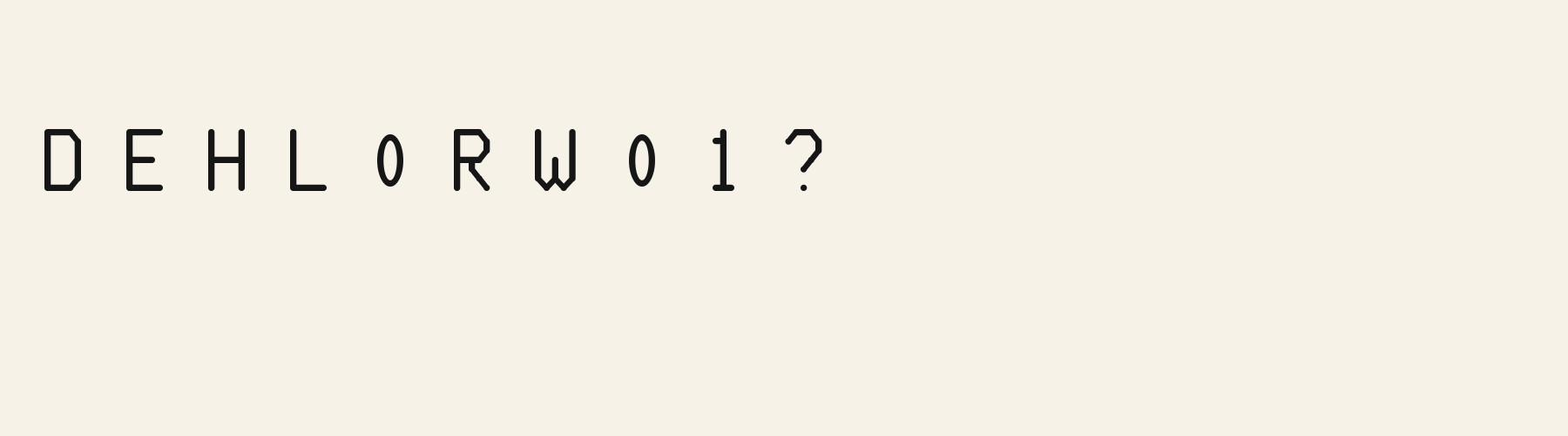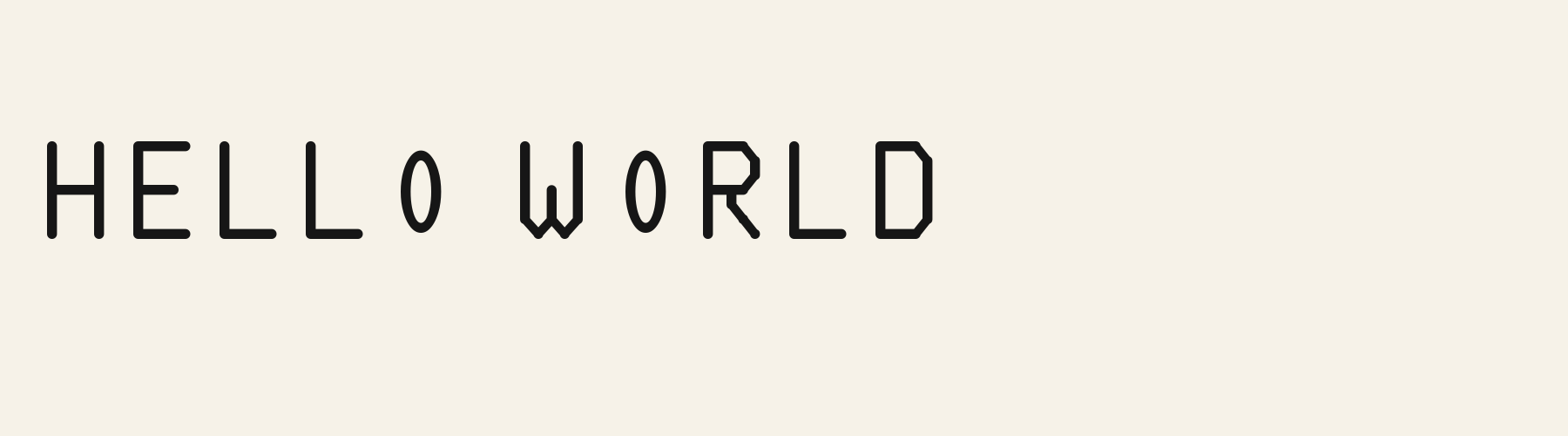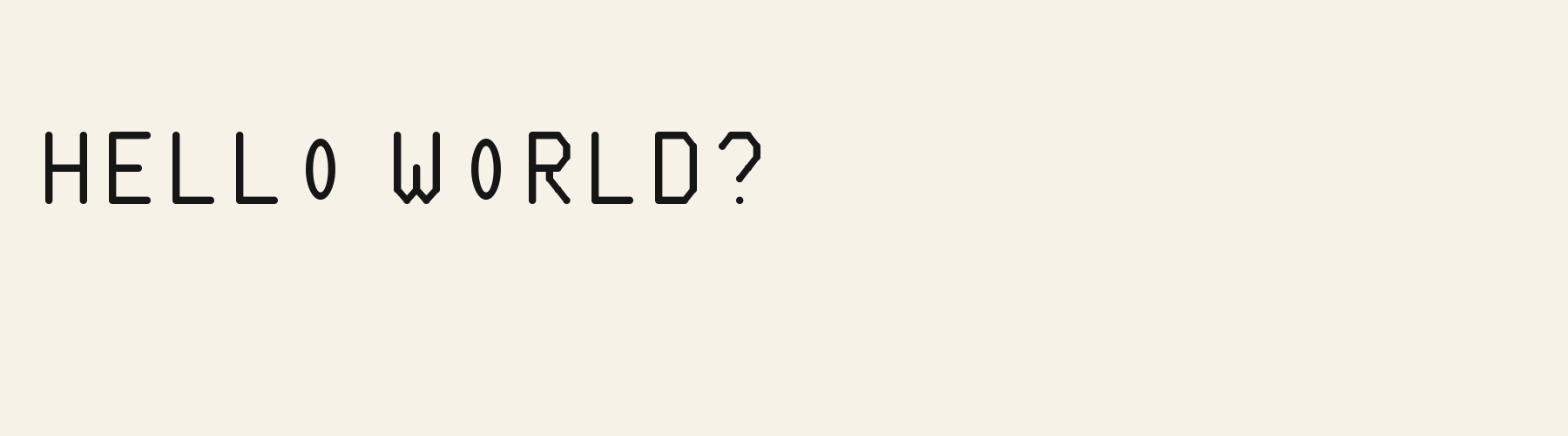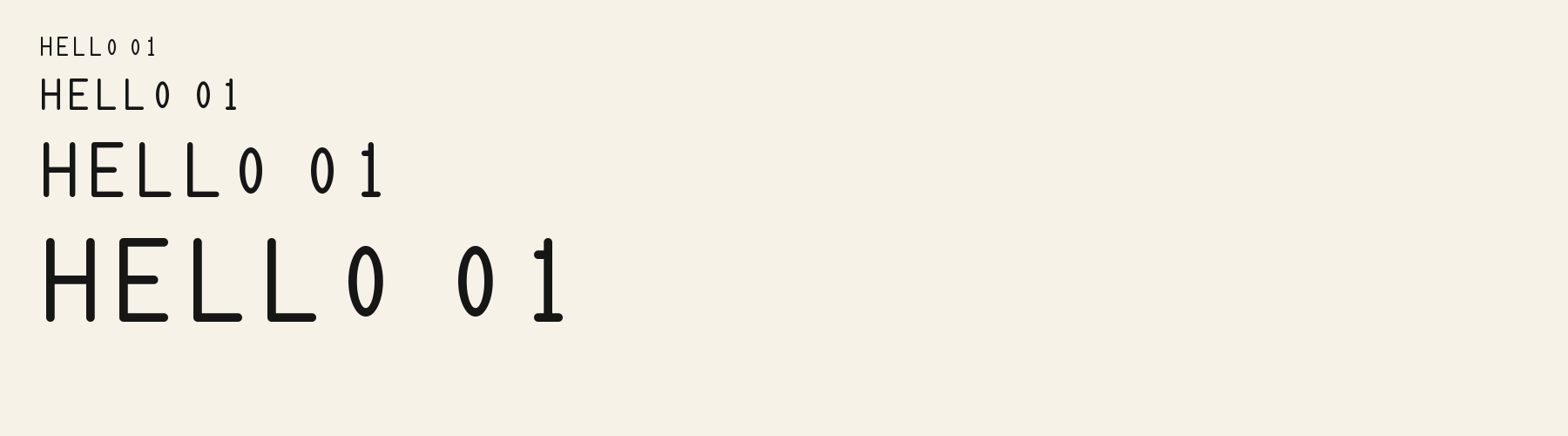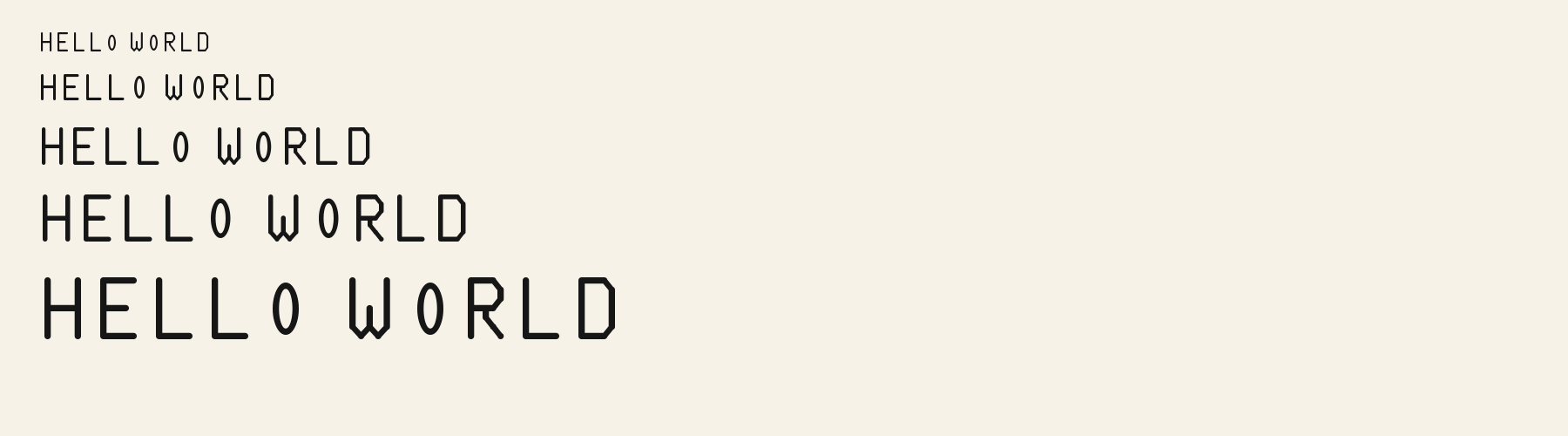
Rounded Arch Display combines thin, even strokes with clipped corners and softly capped ends.
Rounded Arch Display combines thin, even strokes with clipped corners and softly capped ends. The W drops into twin pointed valleys around a short central stem, giving an otherwise upright alphabet a distinctive zigzag. Lowercase e has a faceted bowl, a straight crossbar and an open right side, while o is a small upright oval that sits noticeably below the taller letters. Tall ascenders and low lowercase bodies create a loose, alternating rhythm across words. The result feels spare and architectural, with enough softened detail to keep short headings approachable.
Inspect oval o beside taller stems, the open e, and descending letters in your actual Latin wording. Check repeated l shapes and gaps around capitals before adjusting spacing. For other scripts, inspect separate specimens and confirm the required characters in the font.
Try this face for short headings with a sturdier text sans for descriptions and supporting labels. Its small lowercase o and angular bowls create an uneven visual rhythm; a companion with larger lowercase forms could give longer passages a steadier texture.
Compare the phrase as written with its uppercase setting. Mixed case brings low oval forms, tall ascenders and footed l shapes into view; uppercase emphasizes the crossbars and twin valleys of W. Check which rhythm fits the surrounding layout.
In this uppercase phrase, Rounded Arch Display has finer strokes and a small oval O that floats inside the capital height. The narrow forms and generous gaps give the heading a light, interrupted rhythm.
Rounded Soft Block gives the same uppercase phrase heavier strokes and a larger octagonal O, with clipped outer corners and a similarly faceted counter. Its letters occupy the line more evenly, creating a fuller block of text.
The scenes are illustrations drawn on this page with Rounded Arch Display itself, not client work.
How this page was made. Rounded Arch Display is a FontGenerator library font made with AI; before release its letters were read back one by one by independent automated checks. The design notes were written by AI from the specimen images and checked against them by a second, independent pass; font measurements come from the font file. Preview sizes and spacing are comparison settings.
Its lowercase sits low: the x-height is 70.1% of the cap height, where the median for display fonts is 74.4%, lower than 93 of the 116 other display fonts. Ascenders on b, d, h, k and l line up with the capitals (100% of their height), and descenders on g, j, p, q and y drop 29.9% of the cap height below the baseline, deeper than 109 of the 116 other display fonts. Its letters are of average width for display fonts: an average lowercase letter, spacing included, is 87.1% as wide as the capitals are tall (an average capital, 87.6%), within 0% of the median. The o is an upright oval, 0.72 times as wide as it is tall, and M and W are the widest capitals, at 1.12 times the width of H. The O stops 9.5% of the cap height short of H and stands 6.3% above the baseline.
The letters stand upright, leaning less than 2.5° either way. Vertical stems measure 10.2% of the cap height, lighter than 57 of the 58 other display fonts. Ink covers 20.6% of each lowercase letter's box (its advance width by the cap height), lighter than 104 of the 116 other display fonts. Strokes keep one thickness in every direction: the sides of o and O measure the same as their tops and bottoms.
Its 330 characters include 287 Latin letters, plus 43 figures, punctuation marks and symbols; 235 of the Latin letters are accented or special forms beyond A to Z. The word space measures 42.4% of the cap height, and the blank space either side of a lowercase letter takes up 38.1% of its width. The font carries no kerning, so spacing comes from each letter’s own side bearings. All ten figures share one width, so columns of numbers line up.
Measured from the version 0.3.2 font file. Comparisons are with the 376 published library fonts measured on November 8, 2026, 117 of them display fonts.